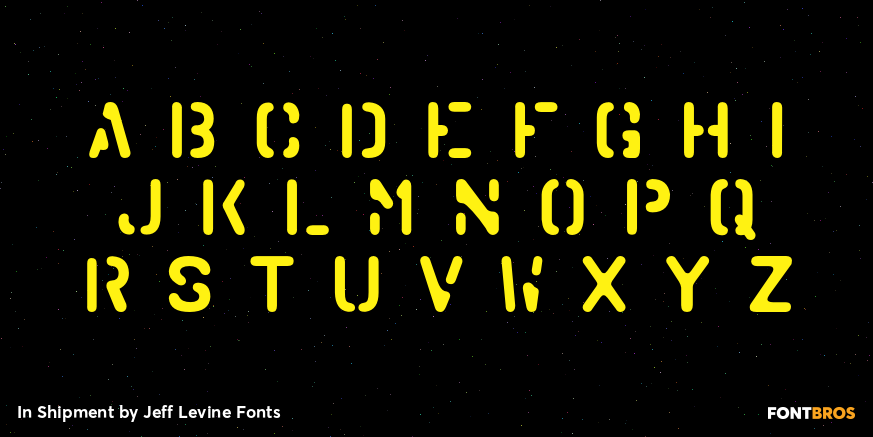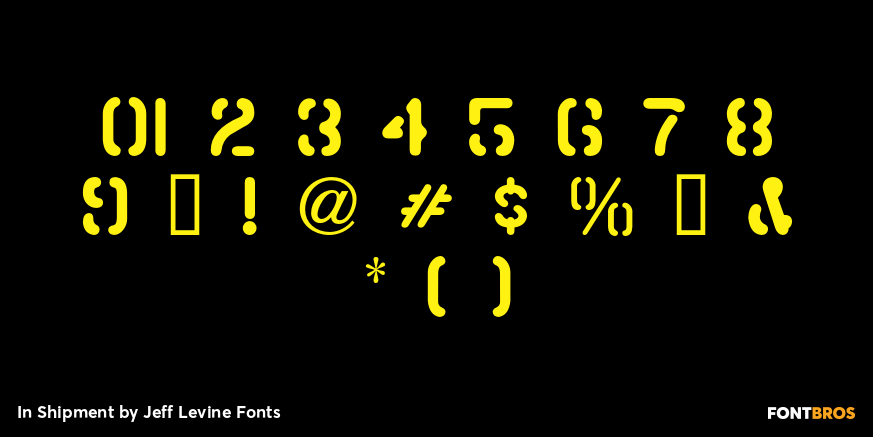
In Shipment
In Shipment JNL is modeled after lettering made from an industrial stencil cutting machine - generally used for marking shipping and inventory information on boxes. Limited character set.